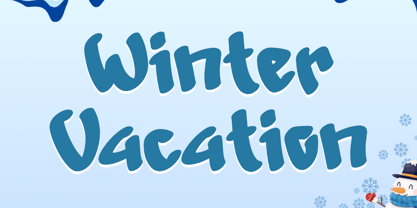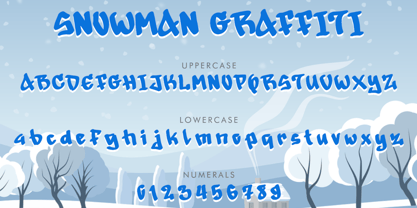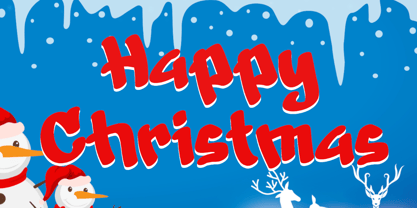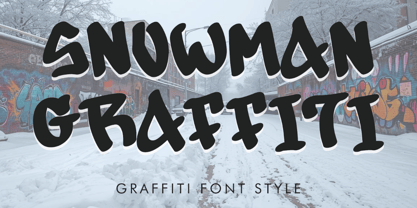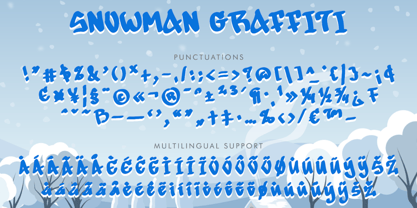
Snowman Graffiti
by Yoga Letter
The Snowman Graffiti Font Family was designed by Isroni Yoga Prasetya and published by Yoga Letter. Snowman Graffiti contains 1 styles. More about this family
"Snowman Graffiti" is a modern and elegant graffiti font. It features uppercase and lowercase letters, numerals, punctuation, and multilingual support. It's perfect for Christmas, Halloween, fall, autumn, winter, spring, and summer, graffiti, comics, movie titles, magazines, banners, posters, logos, vacations, holidays, stickers, tattoos, branding, and more.
Designers: Isroni Yoga Prasetya
Foundry: Yoga Letter